21 Best Valentine Fonts for Romantic Designs in 2026
Valentine’s Day is a celebration of love, warmth, and meaningful connections. In this article, we curate 21 of the best Valentine fonts for romantic designs in 2026, featuring elegant, cinematic, and luxury typefaces perfect for invitations, branding, editorial layouts, and heartfelt creative projects.
Valentine's Day is coming! Celebrated annually on February 14th, many peoples around the world will celebrate this sweet moment. Valentine’s Day is more than just a celebration for couples, but it’s a day that reminds us to cherish the relationships that bring joy, warmth, and meaning into our lives to show appreciation for the people who make life sweeter.
So, in this article we bring to our a collection of some of the best looking Valentine fonts from Sensatype Studio. The beautiful, romantic fonts in this showcase are just perfect for all your Valentine’s Day themed projects such as cards, love quotes posters, party flyers and even designing wedding invitations.
21 Best Valentine Fonts To Use
Seraphine - Cinematic Elegant Display Font
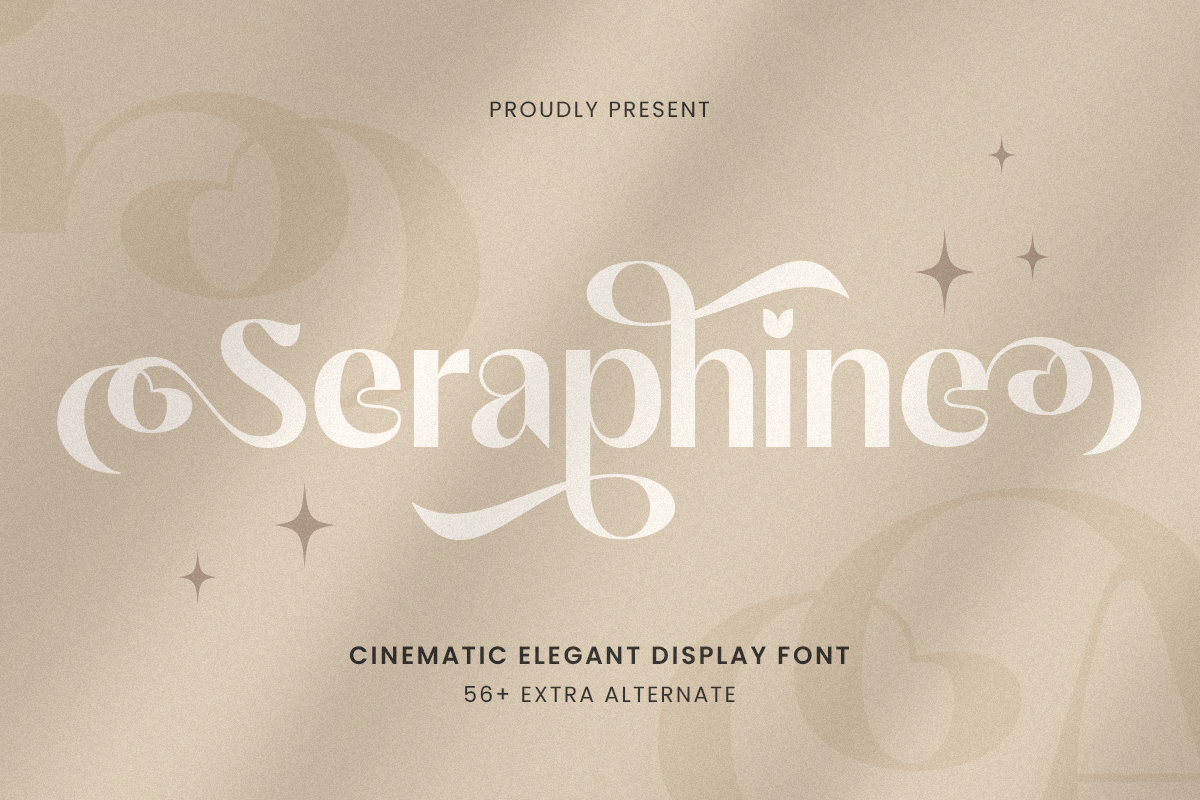
Seraphine - Cinematic Elegant Display Font 1.png Seraphine is a cinematic display font designed with sophistication in every curve. Featuring graceful sans serifs, stylish contrast, and high-end letterforms, this font is perfectly suited for movie titles, fashion branding, editorial layouts, and luxurious packaging.
Renoka - Cinematic Wedding Serif Font
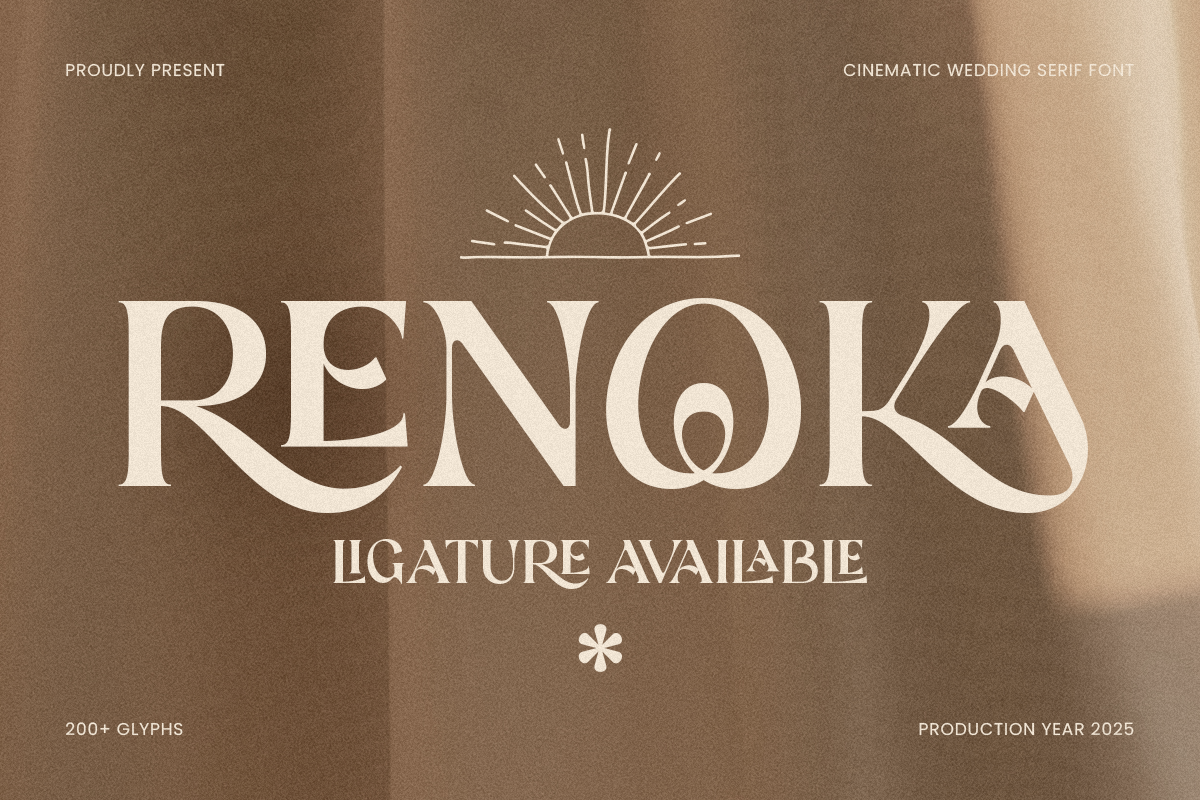
Renoka - Cinematic Wedding Serif Font 1.png Renoka is designed to bring sophistication to wedding stationery, luxury branding, and romantic editorials. Its delicate curves and carefully shaped serifs elevate invitations, logos, magazine covers, and upscale packaging with a premium yet versatile appearance.
Sophia - Beauty Lovely Swash Font
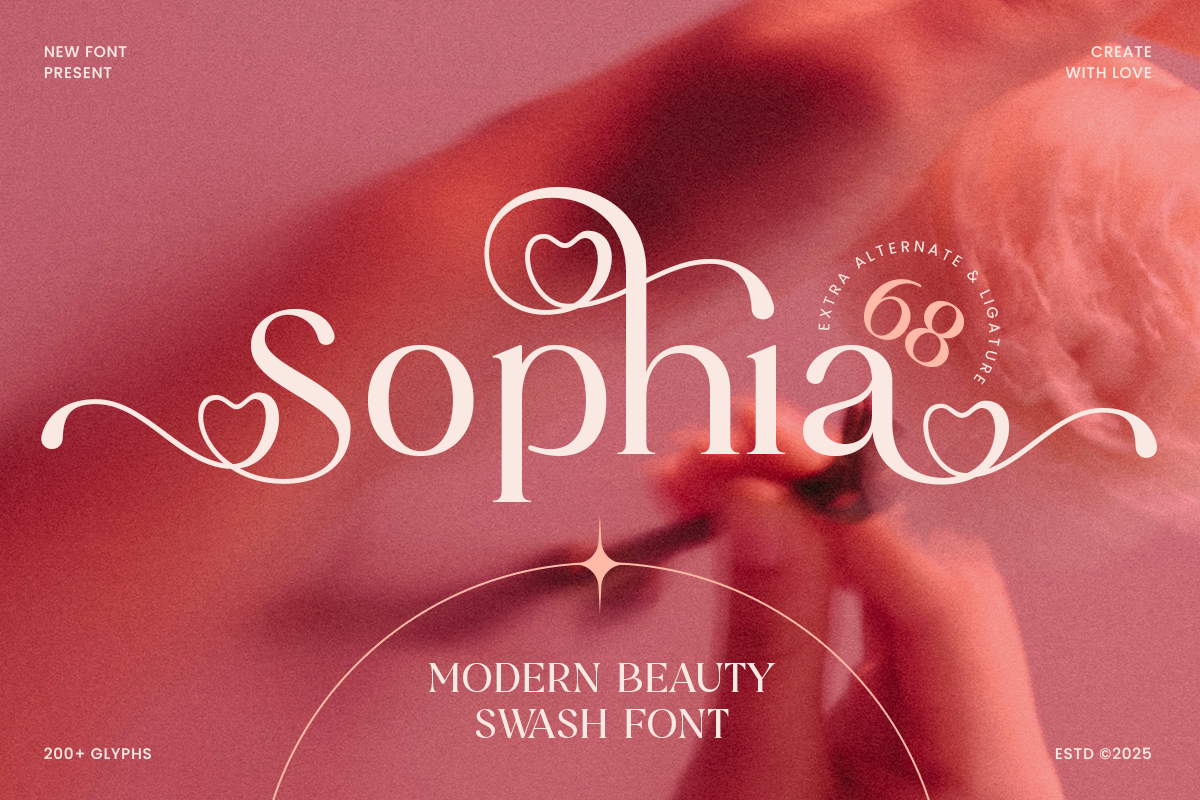
SOPHIA - Beauty Swash Font 1.png Each letter in Sophia is crafted with graceful movement and playful charm, creating a sweet yet classy impression. The swash elements enhance wordmarks beautifully, making this font ideal for logos, quotes, greeting cards, social media posts, and lifestyle branding with a warm, personal feel.
Rosalin - Unique Valentine Lavish Font
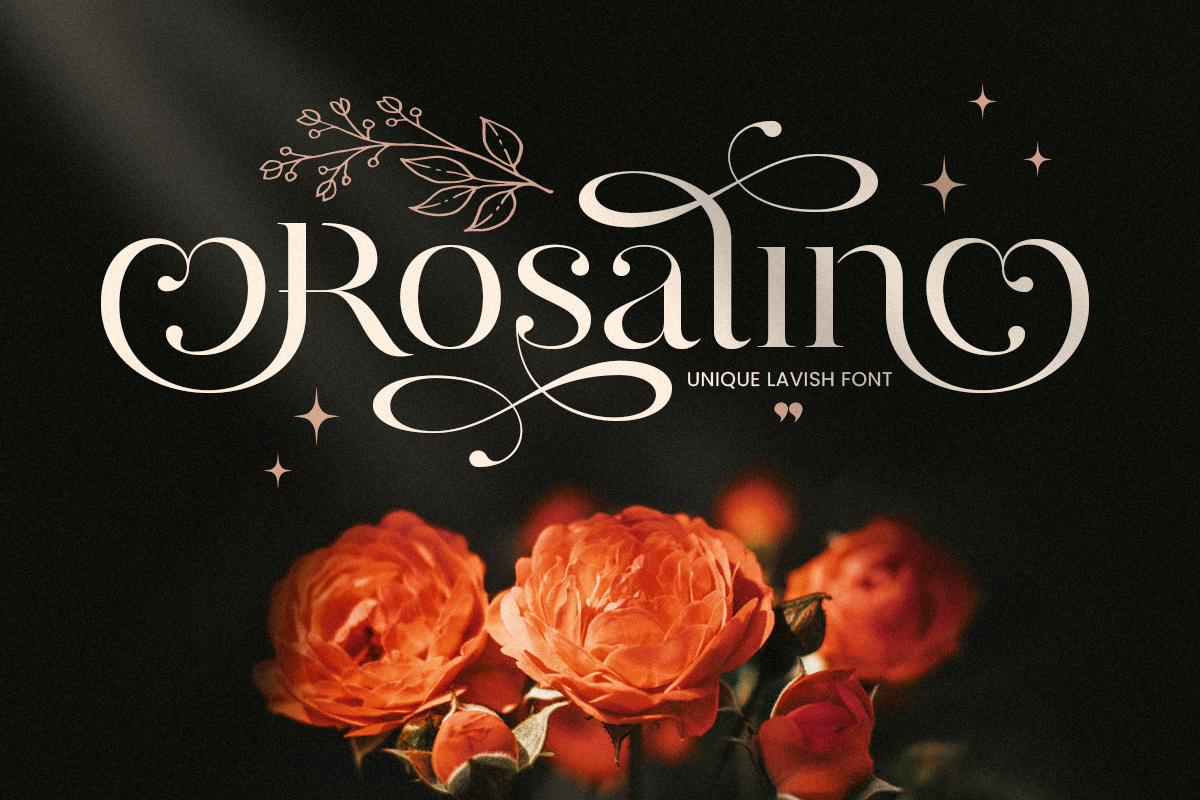
Rosalin - unique lavish font 1.png Rosalin is a Valentine’s Day-inspired lavish font that expresses elegance, romance, and artistic charm. Its graceful letterforms and flowing decorative details evoke love and celebration, making it ideal for emotional, romantic, and luxury-focused design projects.
Rose - Cinematic Lavish Font
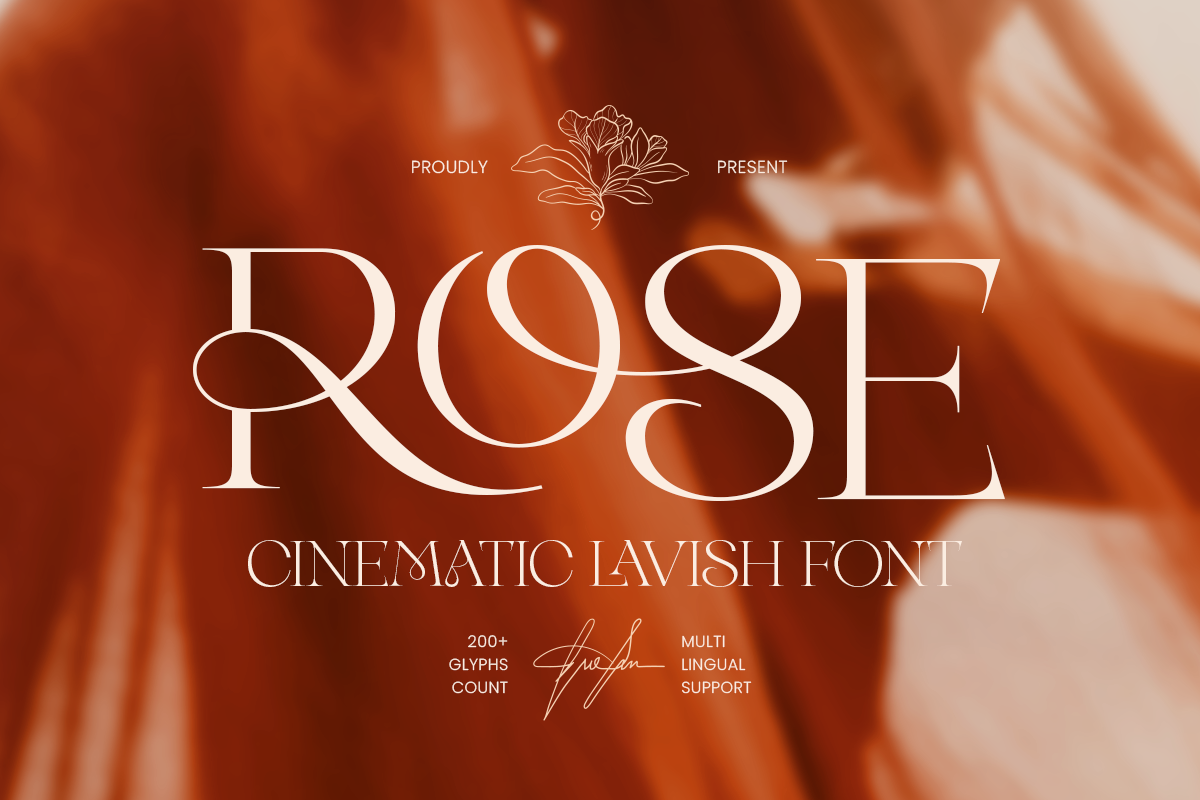
Rose - Cinematic Lavish Font 1.png Rose is designed for cinematic titles and luxury branding, performing beautifully across movie posters, film credits, trailer graphics, editorial headlines, premium packaging, and high end social media campaigns. Its lavish character suits fashion, beauty, fragrance, jewelry, and boutique identities.
Aurelia - Modern Logo Branding Font
Aurelia - Elegant Luxury Logo Serif Font 1.png Aurelia is an elegant luxury logo serif font created for premium branding and high end creative projects. Its refined and stylish letterforms deliver a polished, professional, and luxurious appearance suited to fashion and lifestyle brands.
Nevada - Cinematic Branding Logo Font
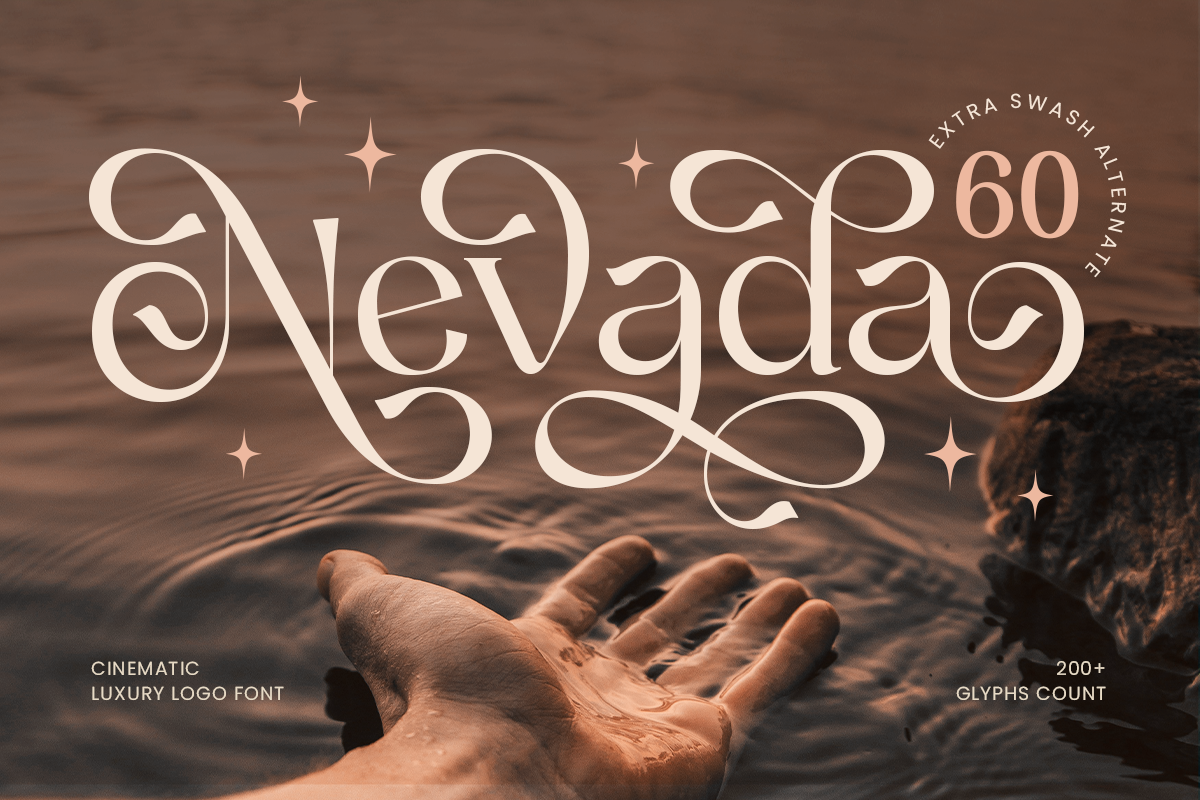
Nevada - Cinematic Luxury Logo Font 1.png Nevada is a cinematic luxury font crafted to bring elegance and sophistication to logos and branding. Combining refined letterforms with cinematic flair, this font offers a timeless and classy aesthetic for premium design projects.
Beasca - Elegant Stylish Serif Branding Font
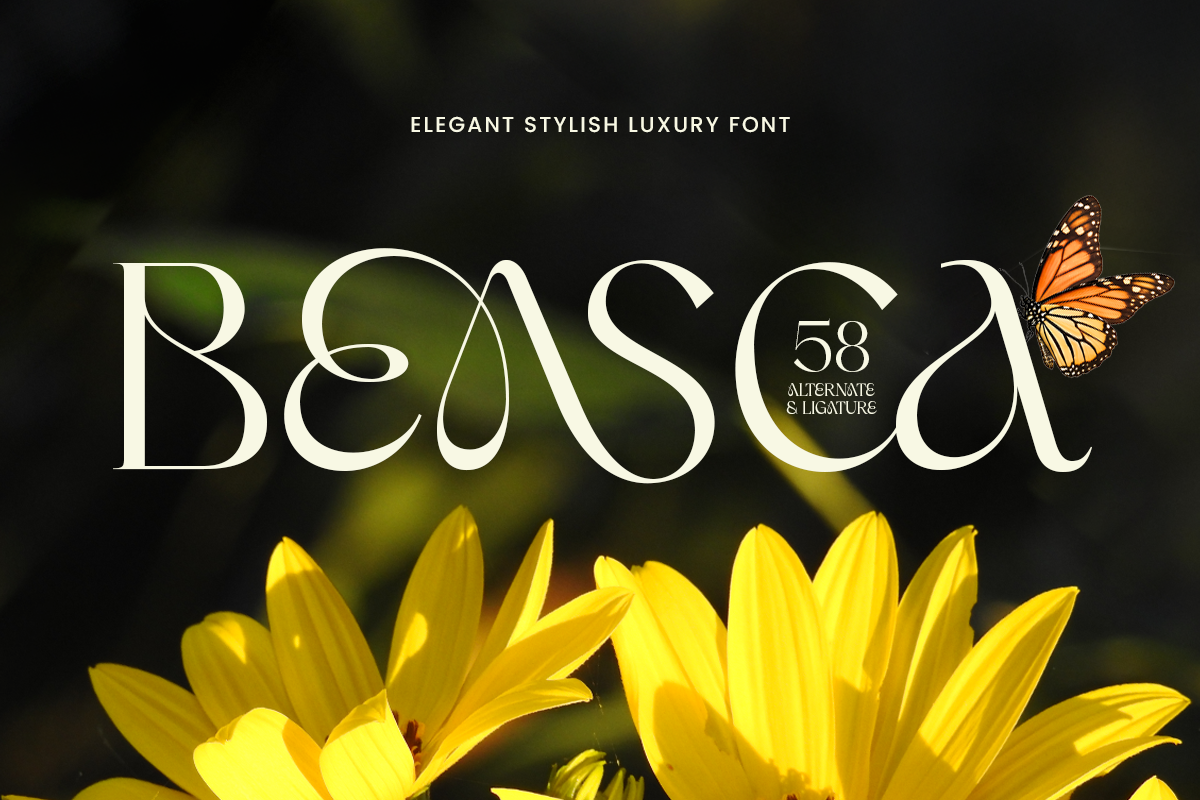
Elegant Stylish Luxury Font 1.2.png BEASCA is an elegant and stylish luxury font designed to elevate creative projects with sophistication and refinement. It works beautifully across logos, high-end branding, editorial layouts, packaging, and both digital and print media.
Eriko - Modern Ligature Serif Logo Font
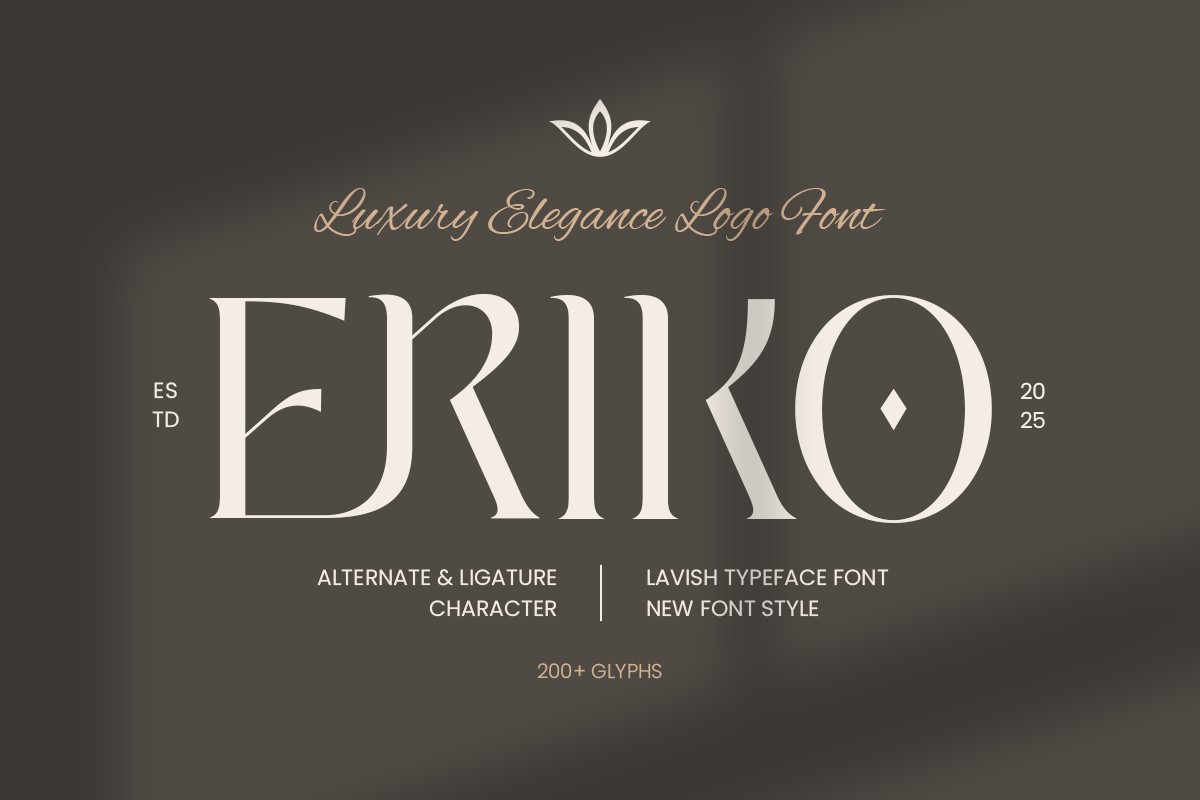
Eriko - Modern Luxury Logo Font 1.2.png Eriko is a modern luxury logo font designed for premium branding and elegant creative projects. With sleek, refined letterforms inspired by contemporary minimalism, it delivers a sophisticated aesthetic for fashion, lifestyle, and luxury brands.
Melanio - Modern Elegant Serif Font
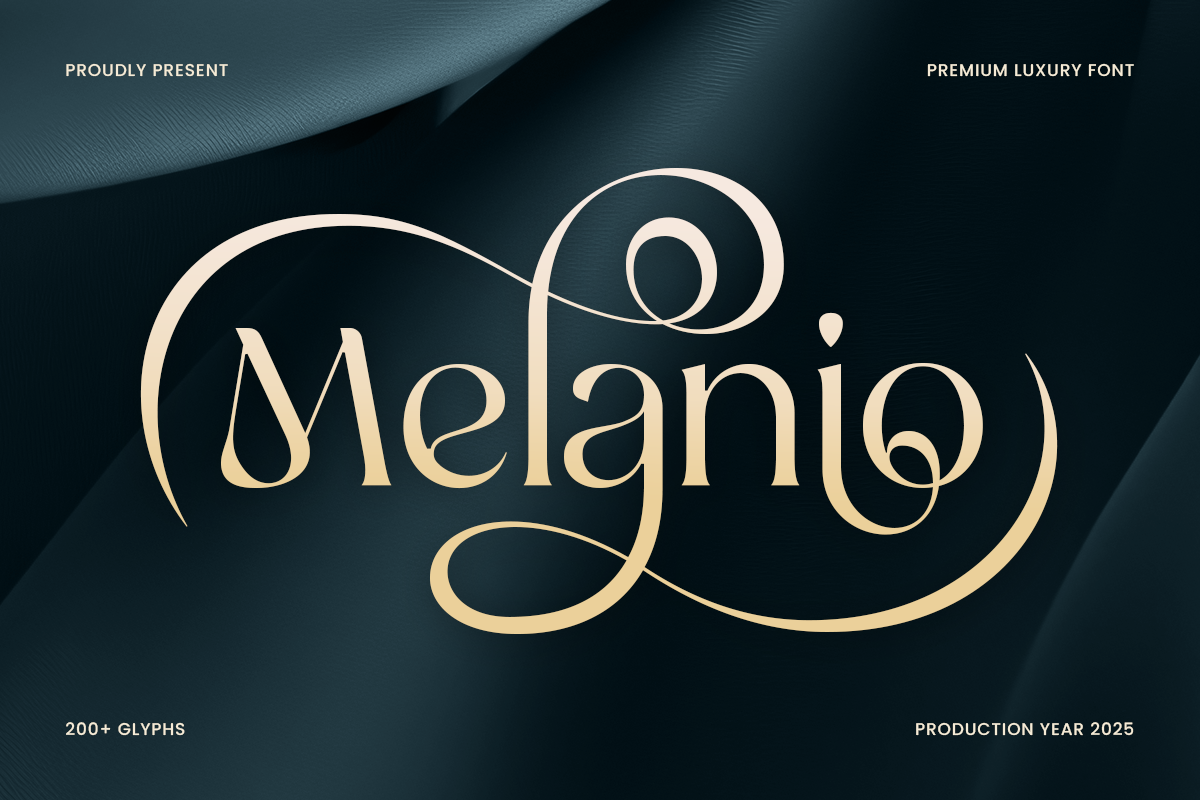
Melanio - Premium Luxury Font 1.png Melanio is perfect for high-end branding, luxury logos, and upscale design projects. Its refined serif style commands attention while maintaining grace and class, making it ideal for hospitality, premium packaging, and exclusive brand identities.
Floral - Aesthetic Luxury Serif Logo Font
Floral - Aesthetic Luxury Serif Logo Font 1.png Floral is an aesthetic luxury serif logo font crafted to deliver a refined, premium impression. With graceful serif details and a polished high-end feel, this typeface brings a modern yet romantic elegance to any design.
Metrina - Elegant Cinematic Font
Valentine’s Day is all about love. Whether you’re designing a heartfelt card, a romantic Instagram post, a party invitation, or a seasonal marketing graphic, the font you choose plays a big role in how your message is received. Valentine’s Day is always identical with chocolate, roses, and greeting cards. To make your greeting card more special and attention grabbing, ensure you choose the best Valentine’s Day Fonts from Sensatype Studio.